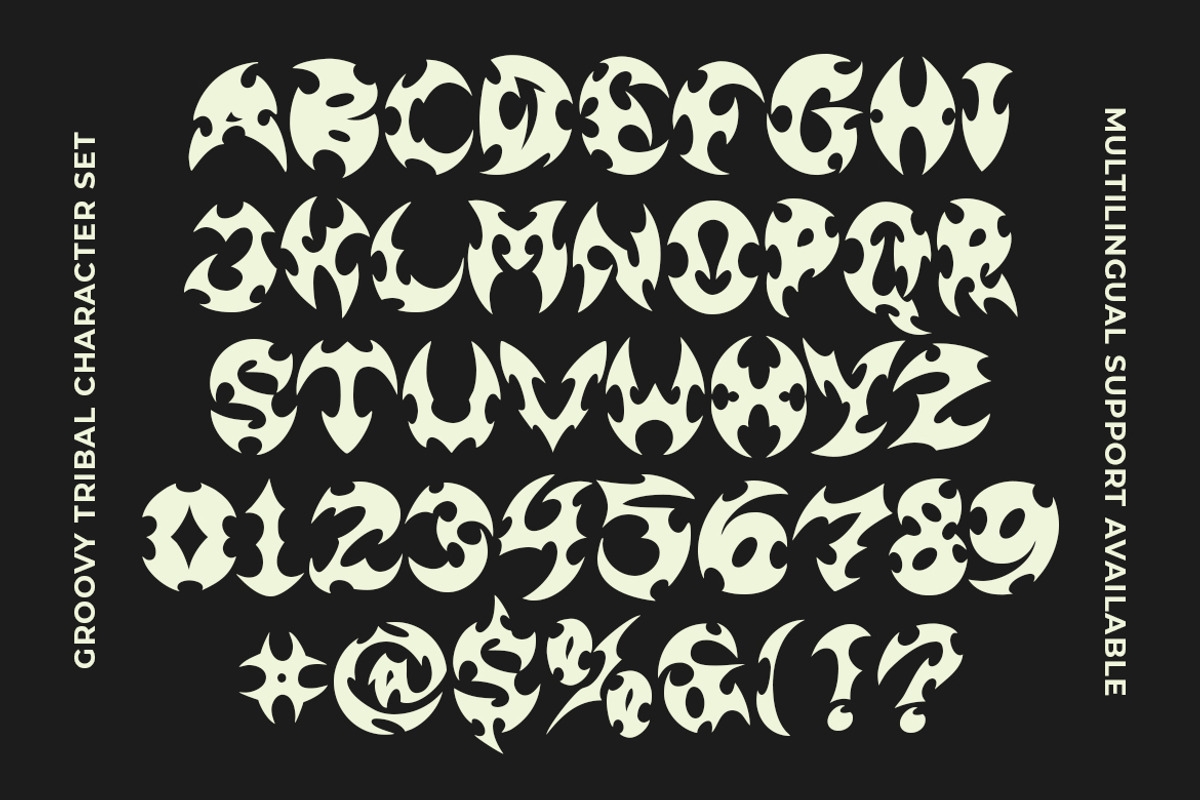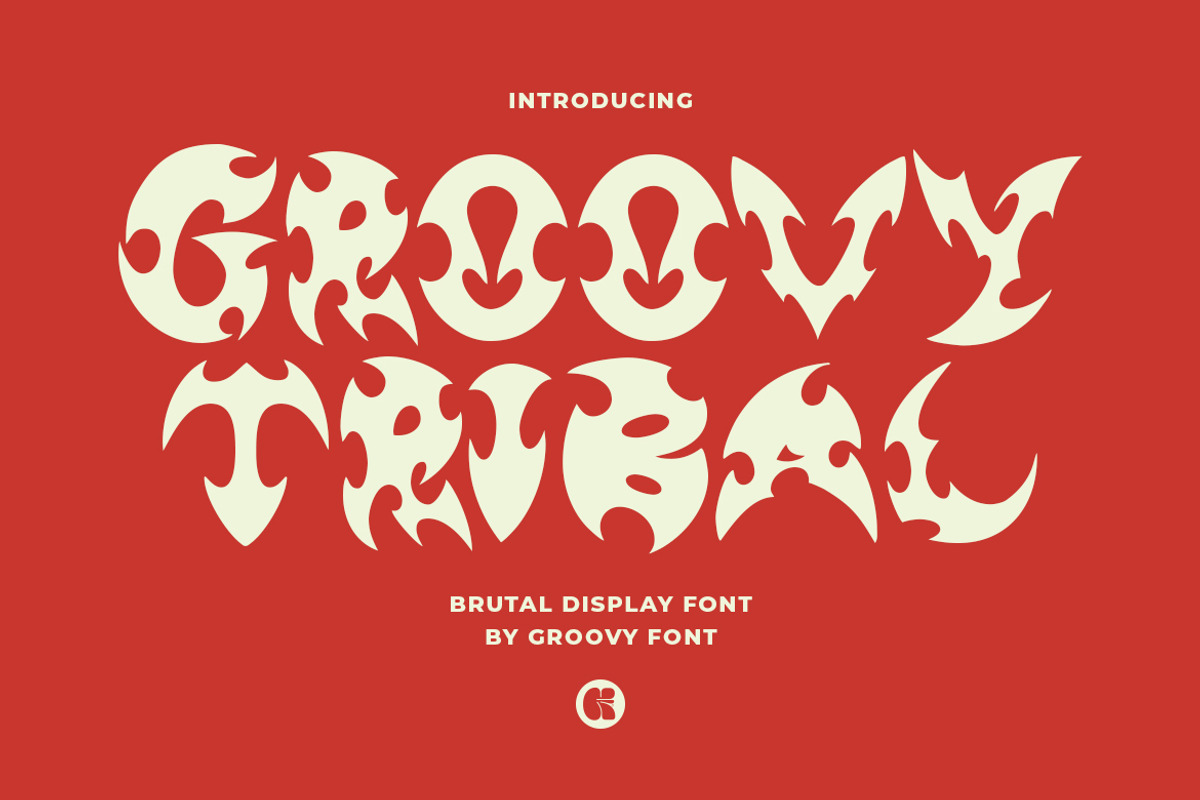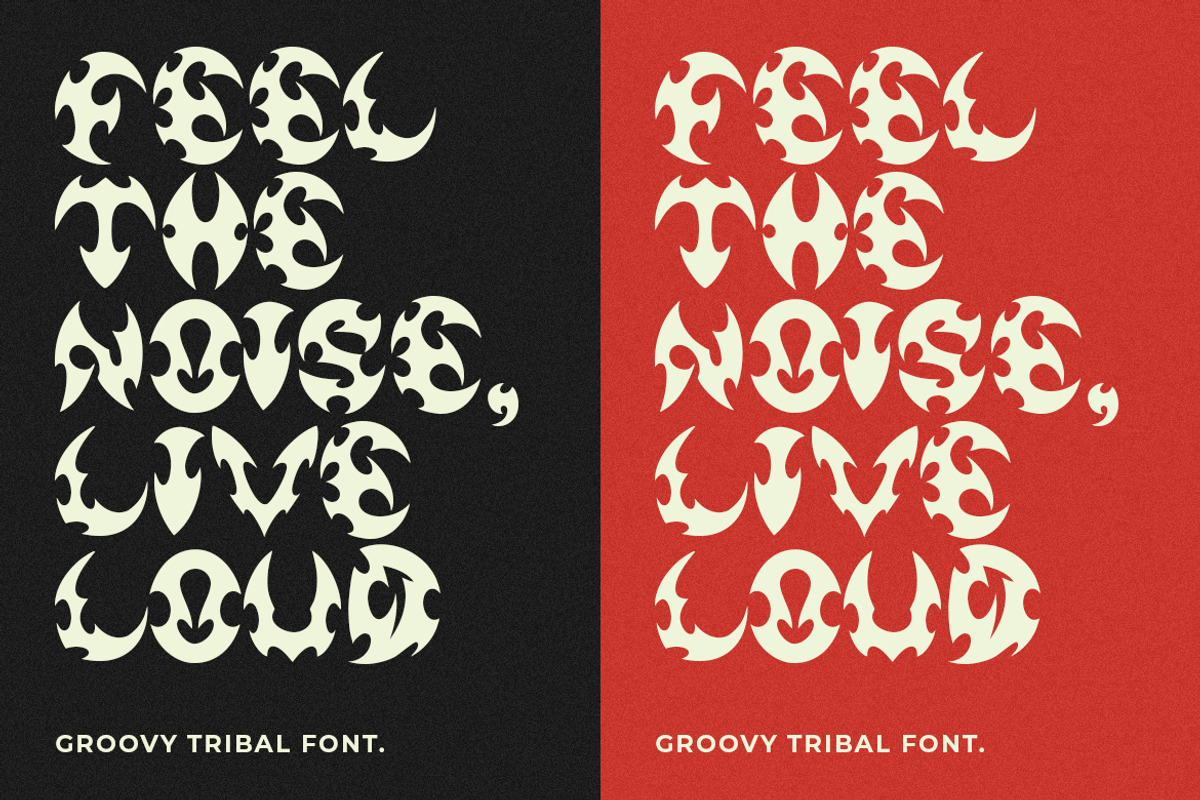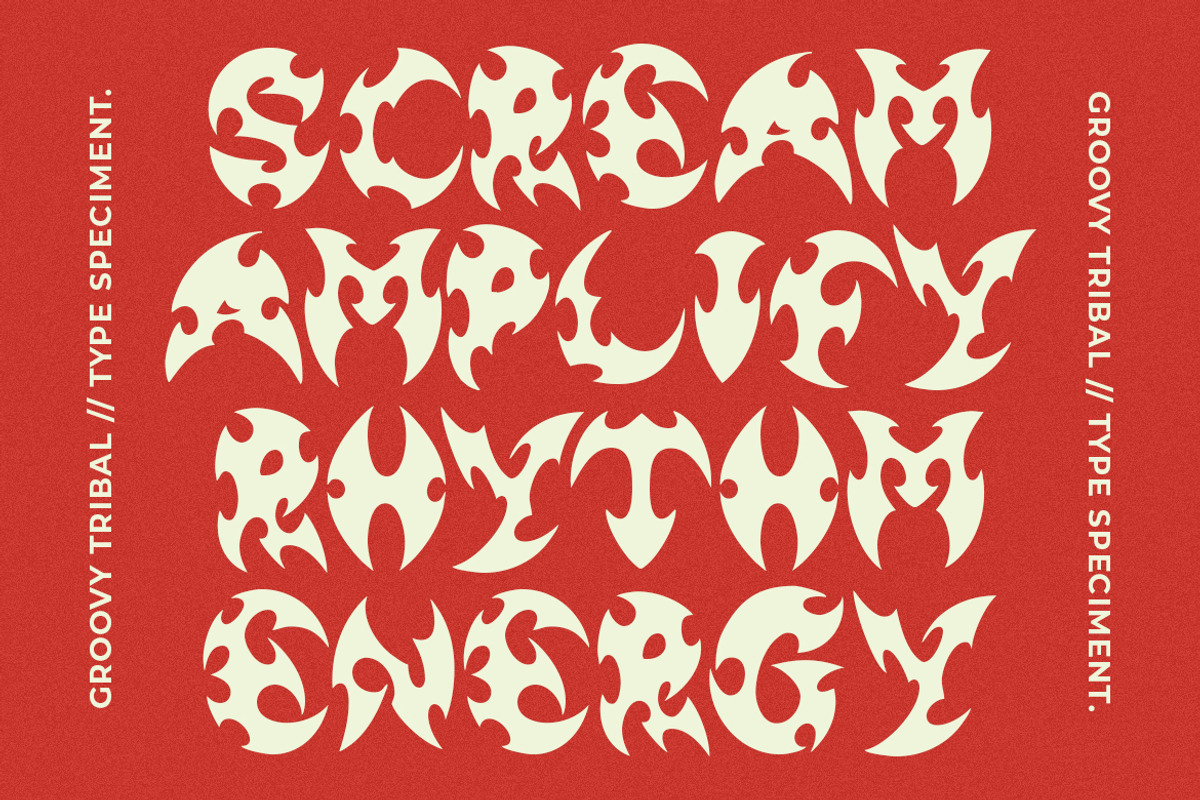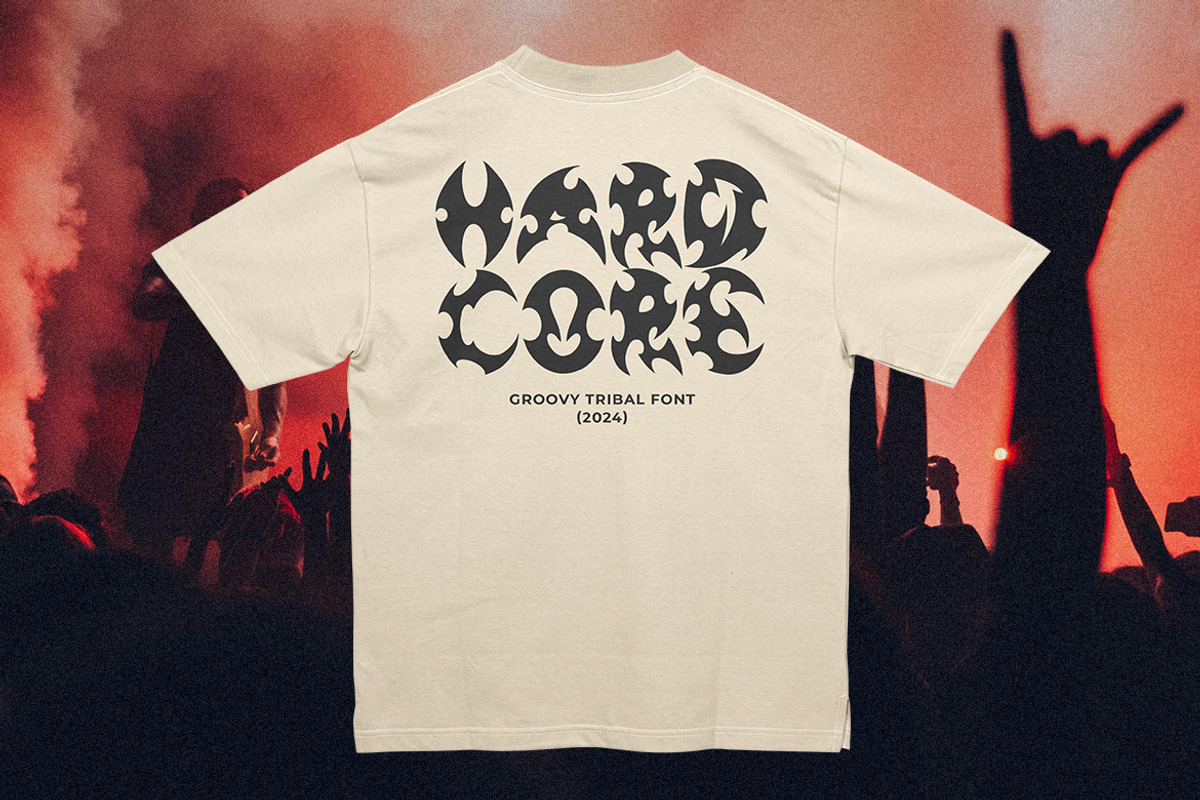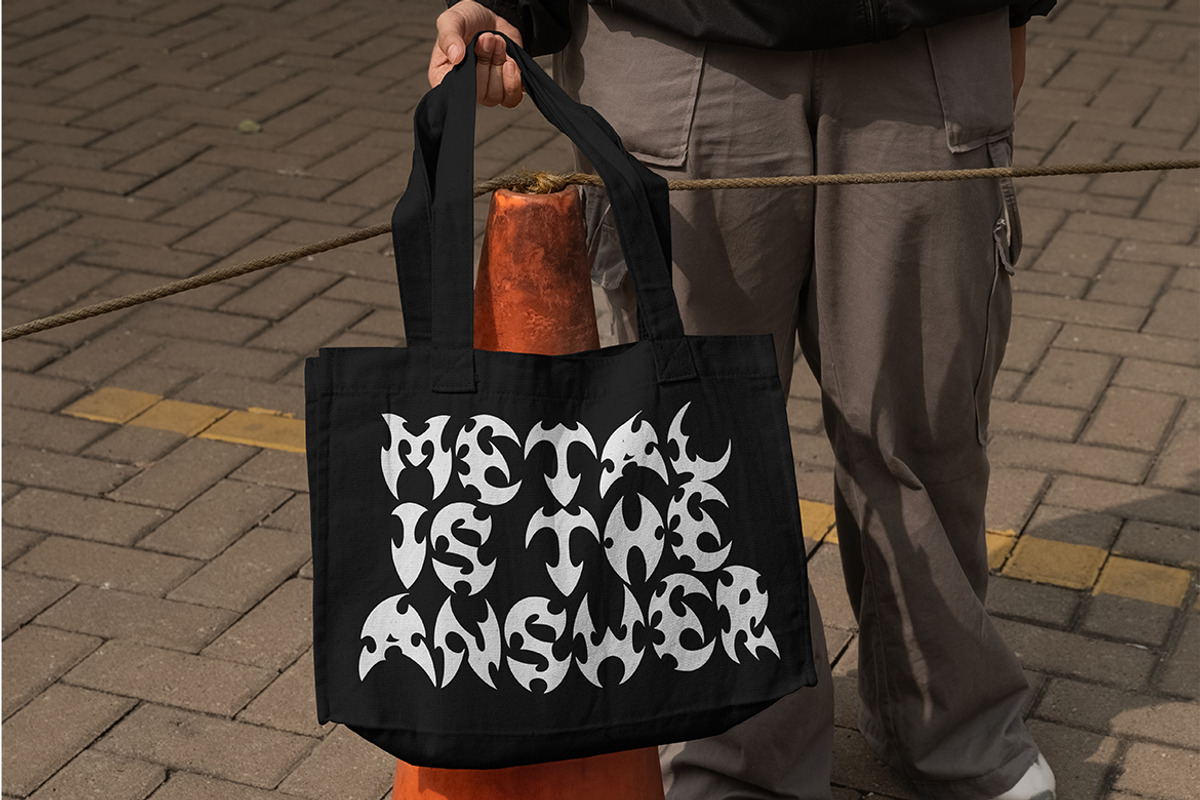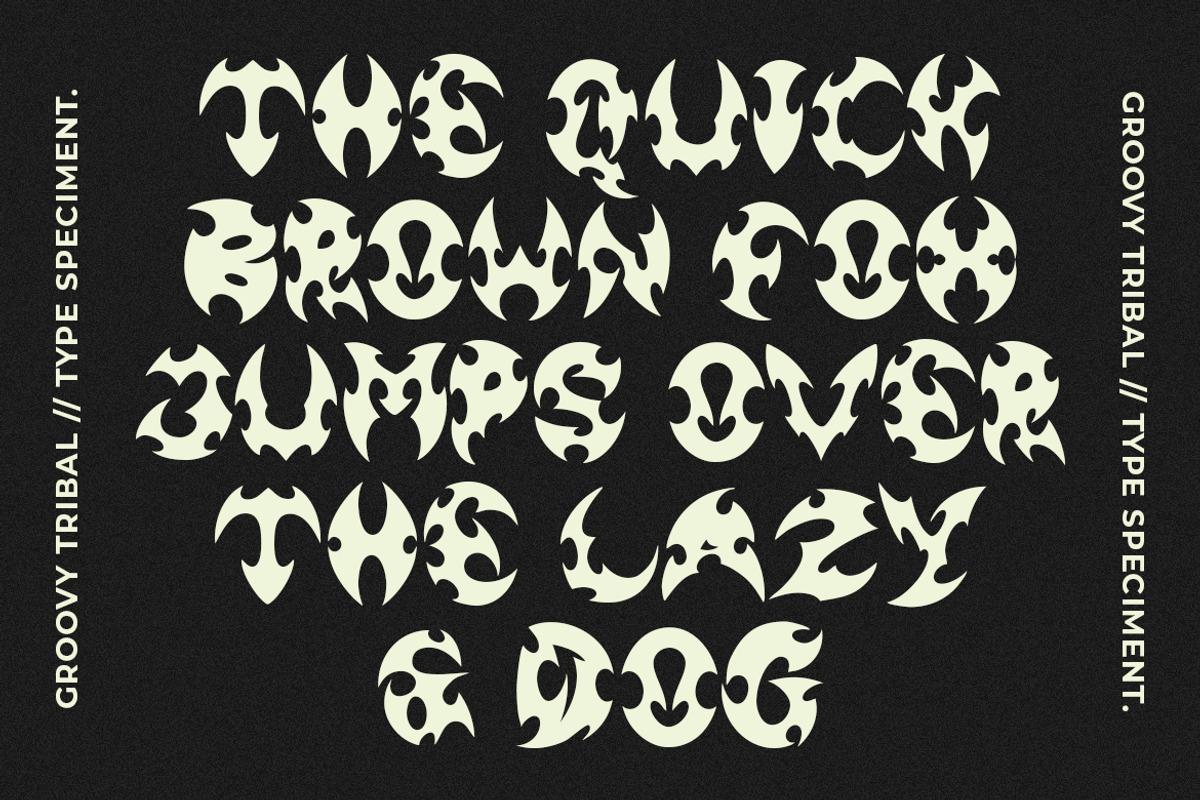
GF Tribal Brutal Display Font
Groovy Tribal is a Brutal Display Font is a fierce and eye-catching font. With its eccentric and spirited design, this font blazes like fire with a bold and inspiring power.
This font is ideal for creating bold and impactful designs such as posters, banners, album covers, and any project that requires a strong and daring visual presence.